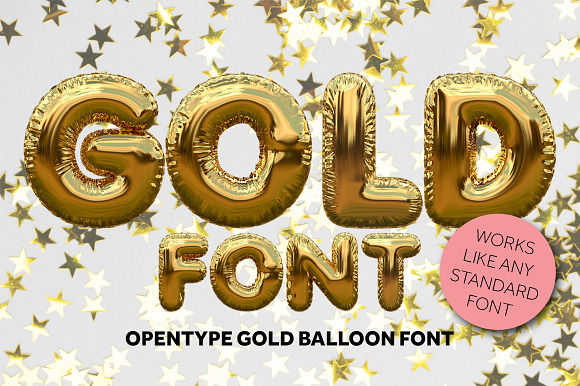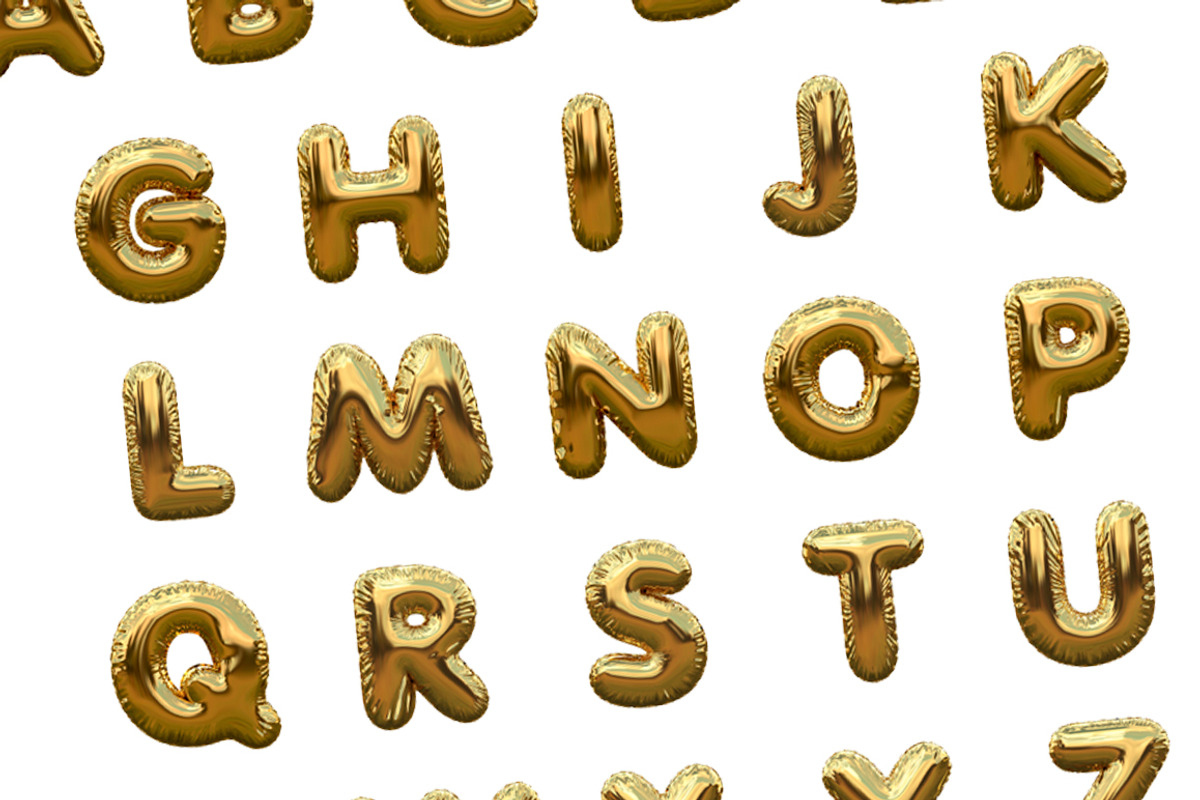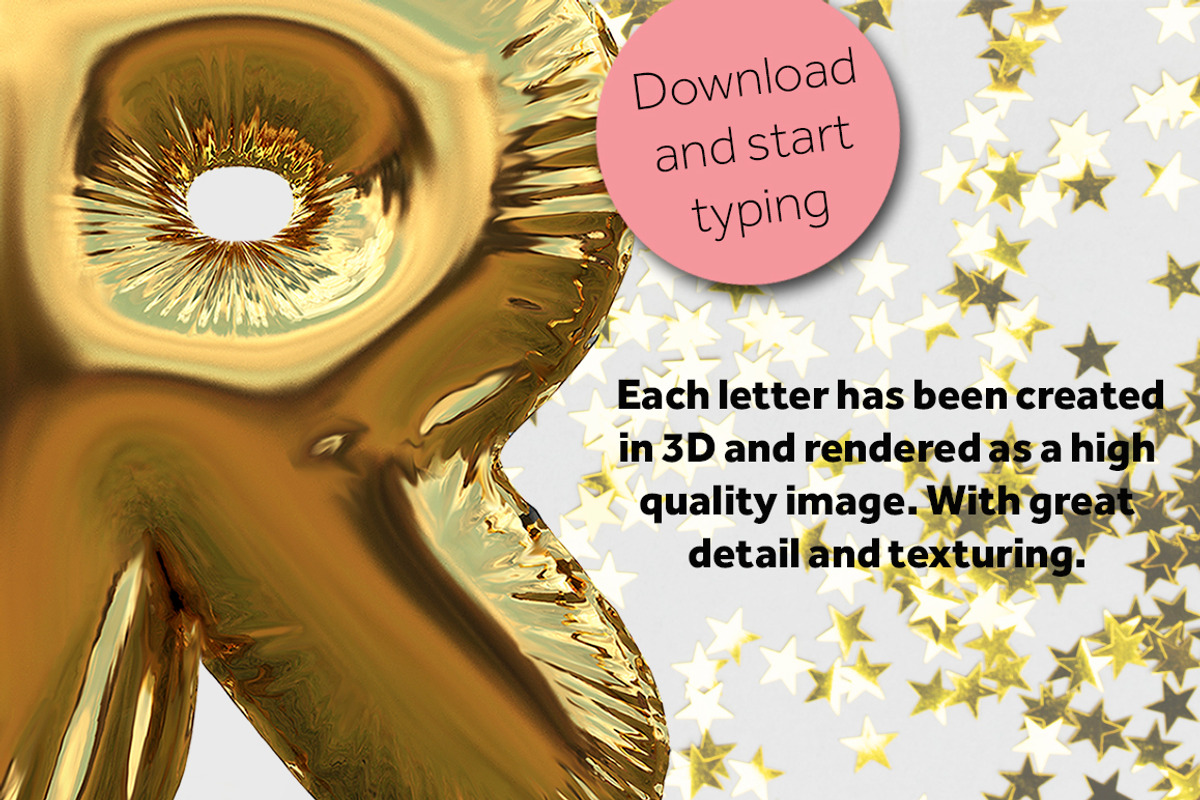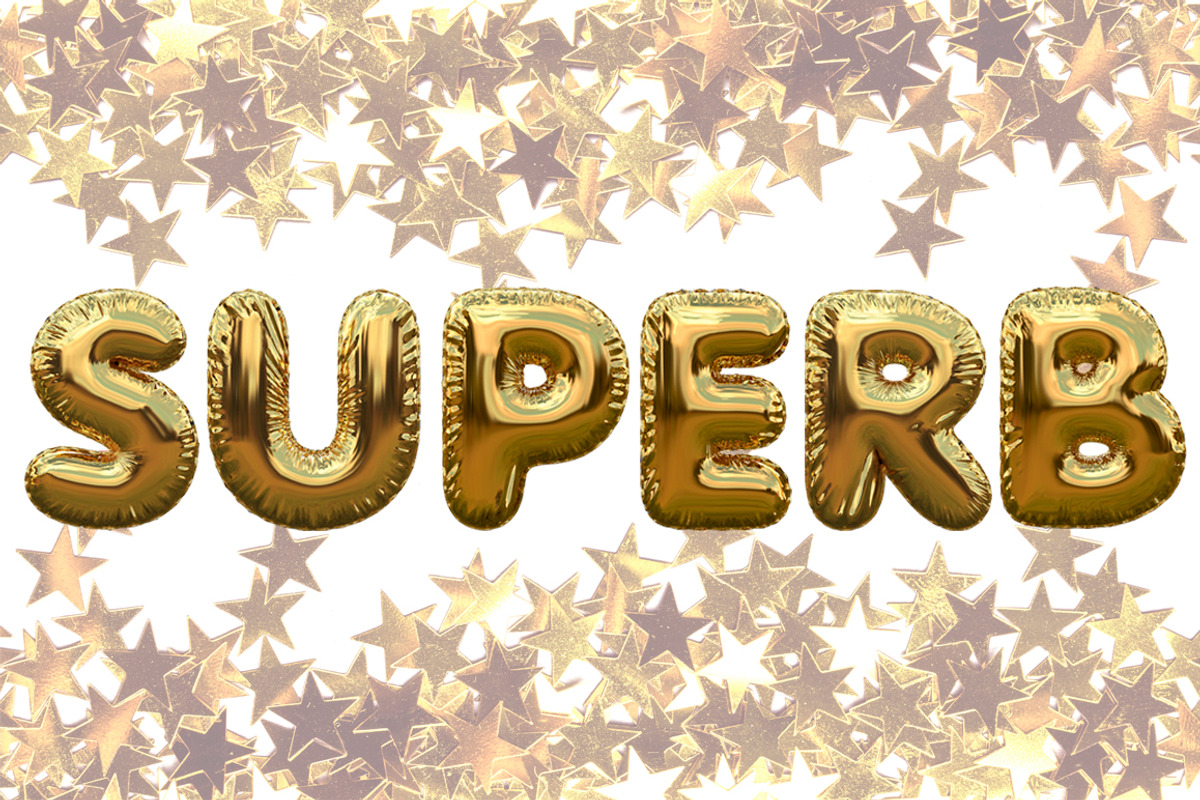
Gold foil balloon font
Gold foil is a colour OTF font. Each letter has been created in 3D then turned into a simple to use font. Just download and start typing in beautiful gold balloon lettering. Its perfect for creating stunning invitations and posters!